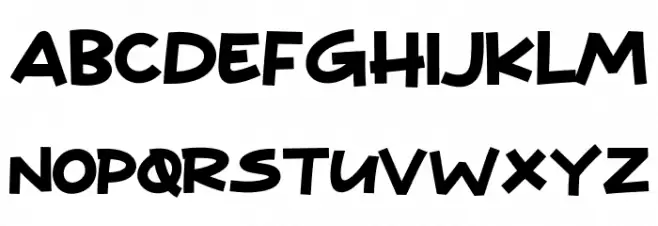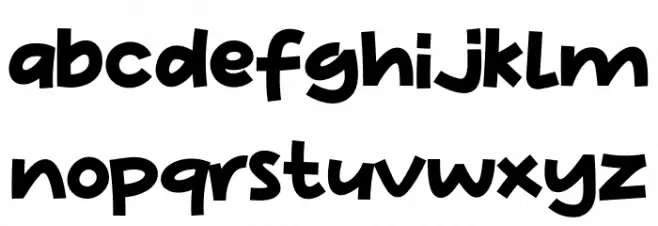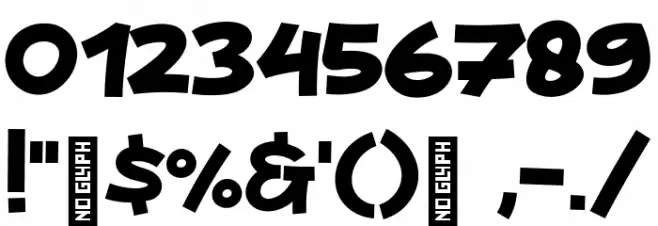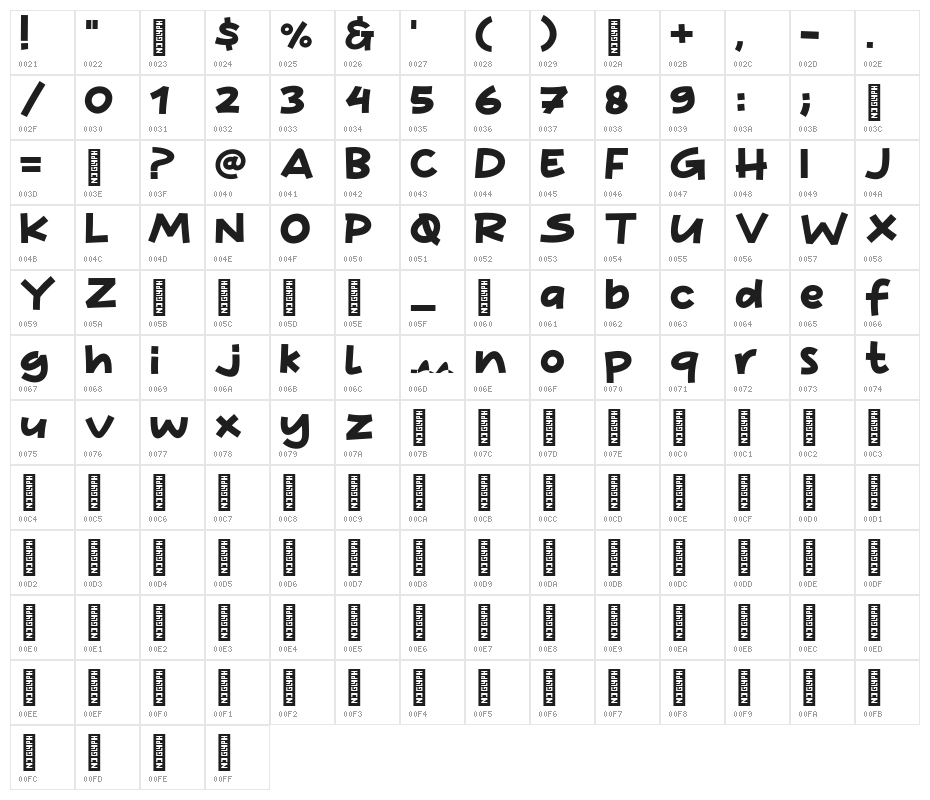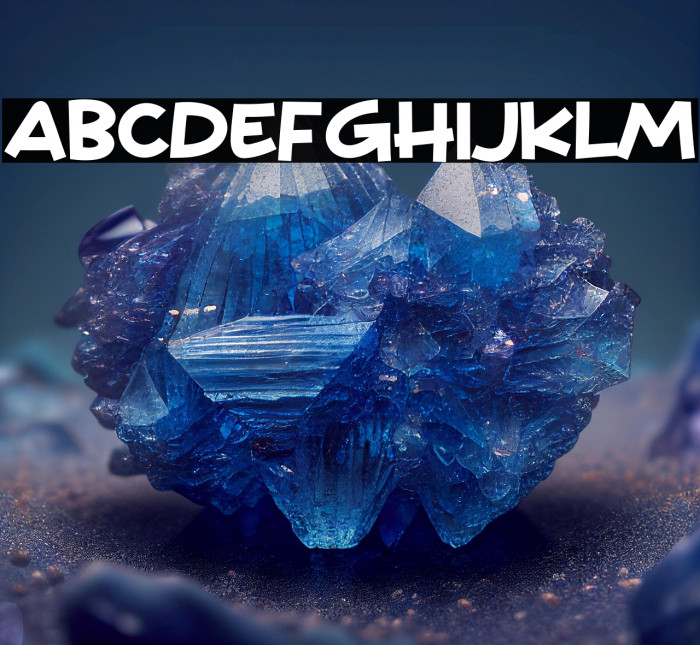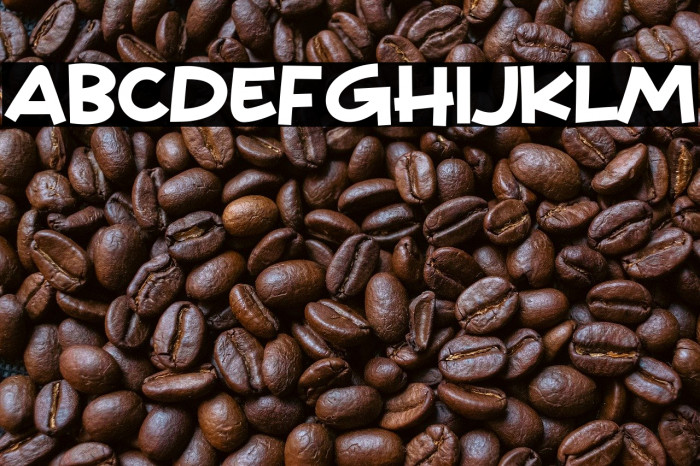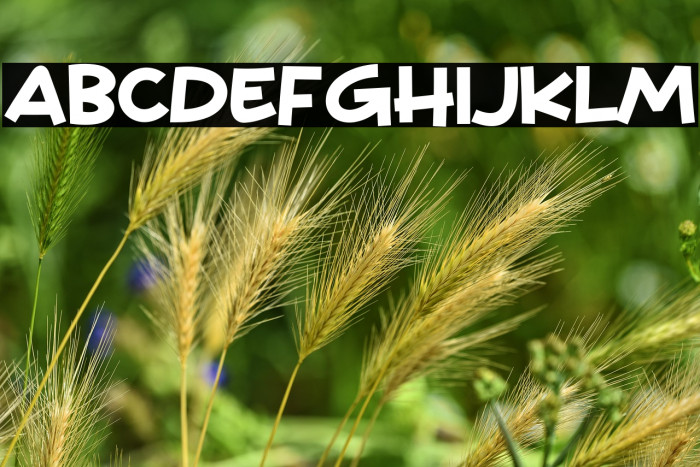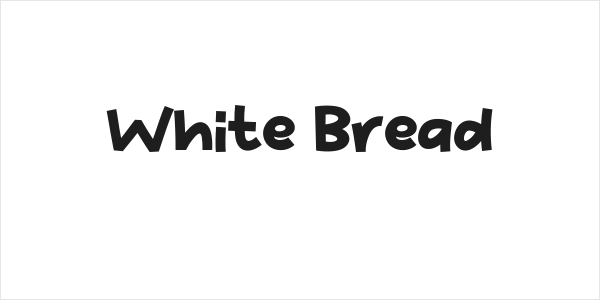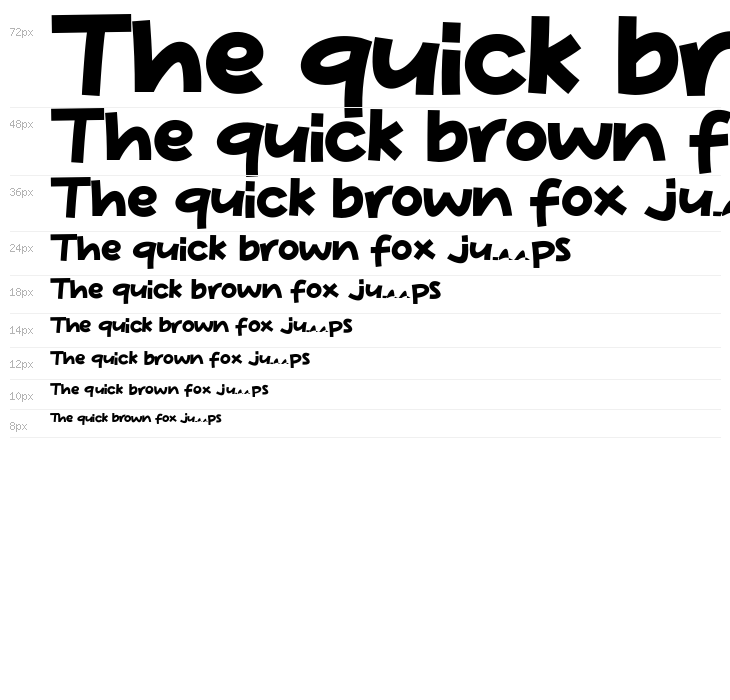
White Bread Font
White Bread Description
This font features a playful and bold style with a slightly irregular and hand-drawn appearance. The characters are thick and rounded, giving a friendly and approachable feel. The uppercase and lowercase letters maintain a consistent weight, while the numbers and special characters follow the same design ethos, ensuring uniformity across all glyphs. The font's unique character shapes, such as the quirky 'Q' and the dynamic 'g', add personality and charm, making it suitable for creative and informal applications.
A playful, bold font with a hand-drawn, friendly appearance.
- Font: White Bread
- Proposed Projects: Ideal for children's books, comic strips, playful branding, and informal event invitations.
- Overall Style: Playful